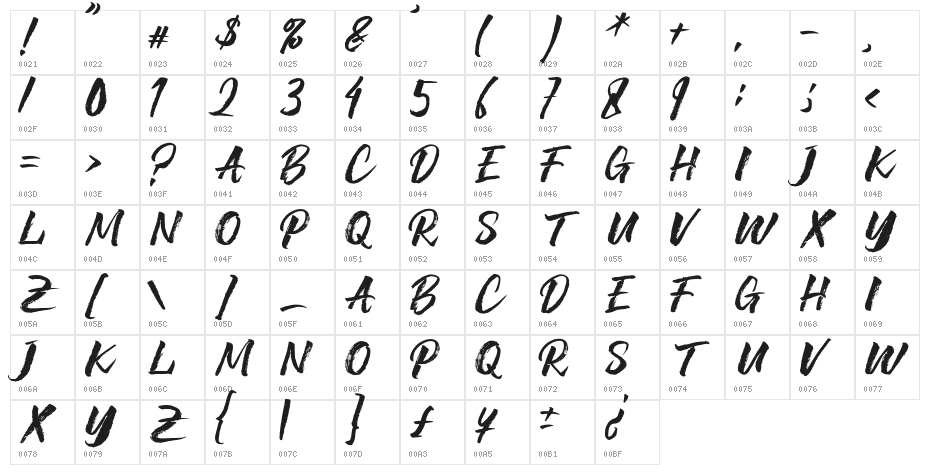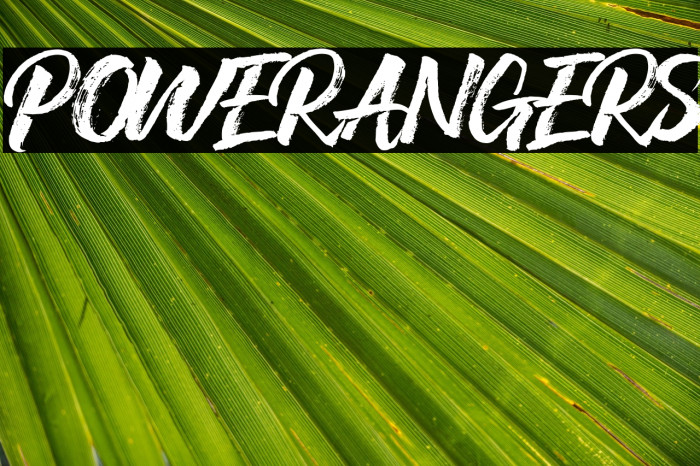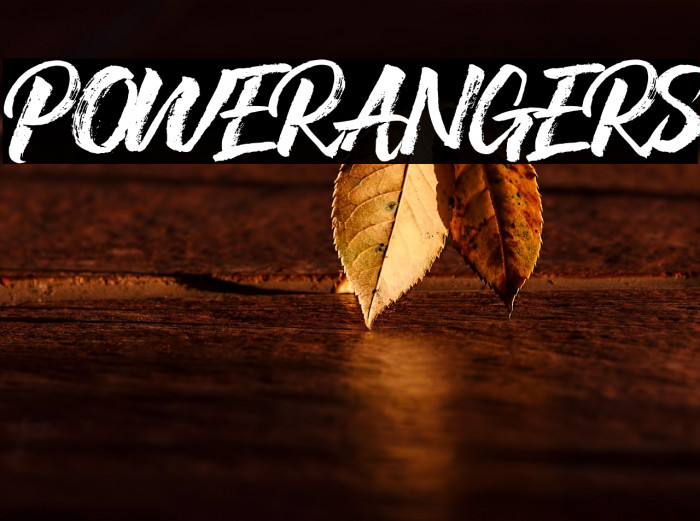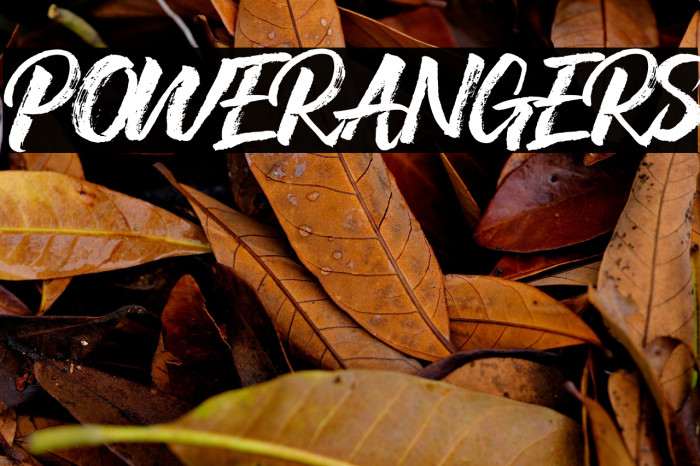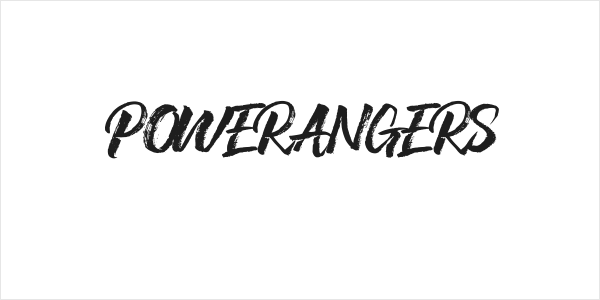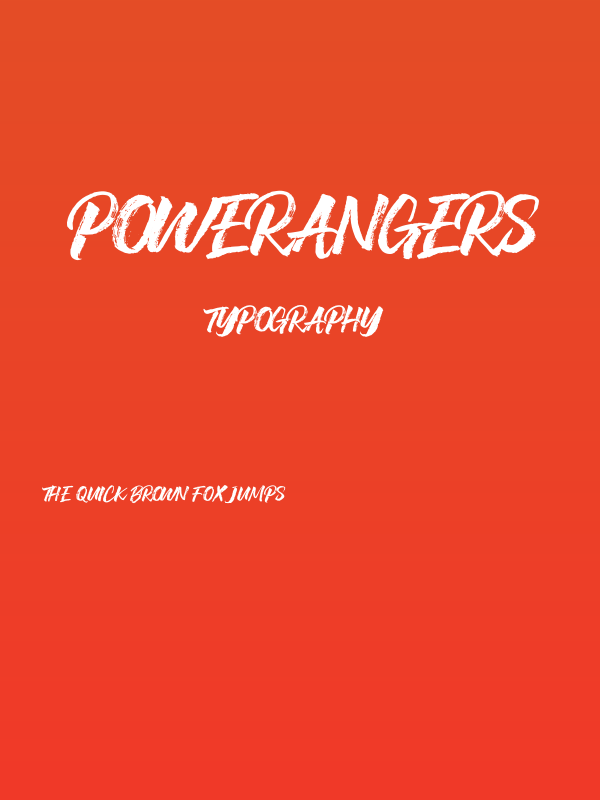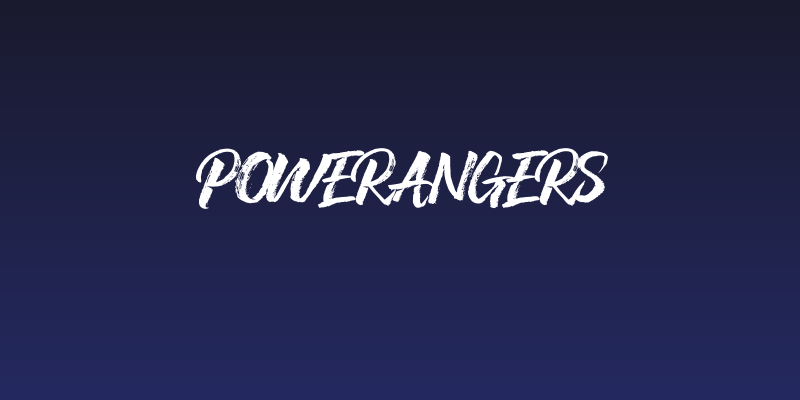
POWERANGERS Font
POWERANGERS Description
This font features a bold, expressive brush script style that exudes energy and dynamism. The letters are crafted with a rough, textured appearance, giving them a hand-painted look. The uppercase and lowercase letters maintain a consistent flow, with strokes that vary in thickness, adding to the font's lively character. The numbers and special characters are equally bold and maintain the same textured style, ensuring a cohesive look across all elements. This font's energetic and artistic flair makes it ideal for projects that require a strong visual impact.
| Proposed Projects | Ideal for branding, posters, album covers, and any project needing a dynamic, artistic touch. |